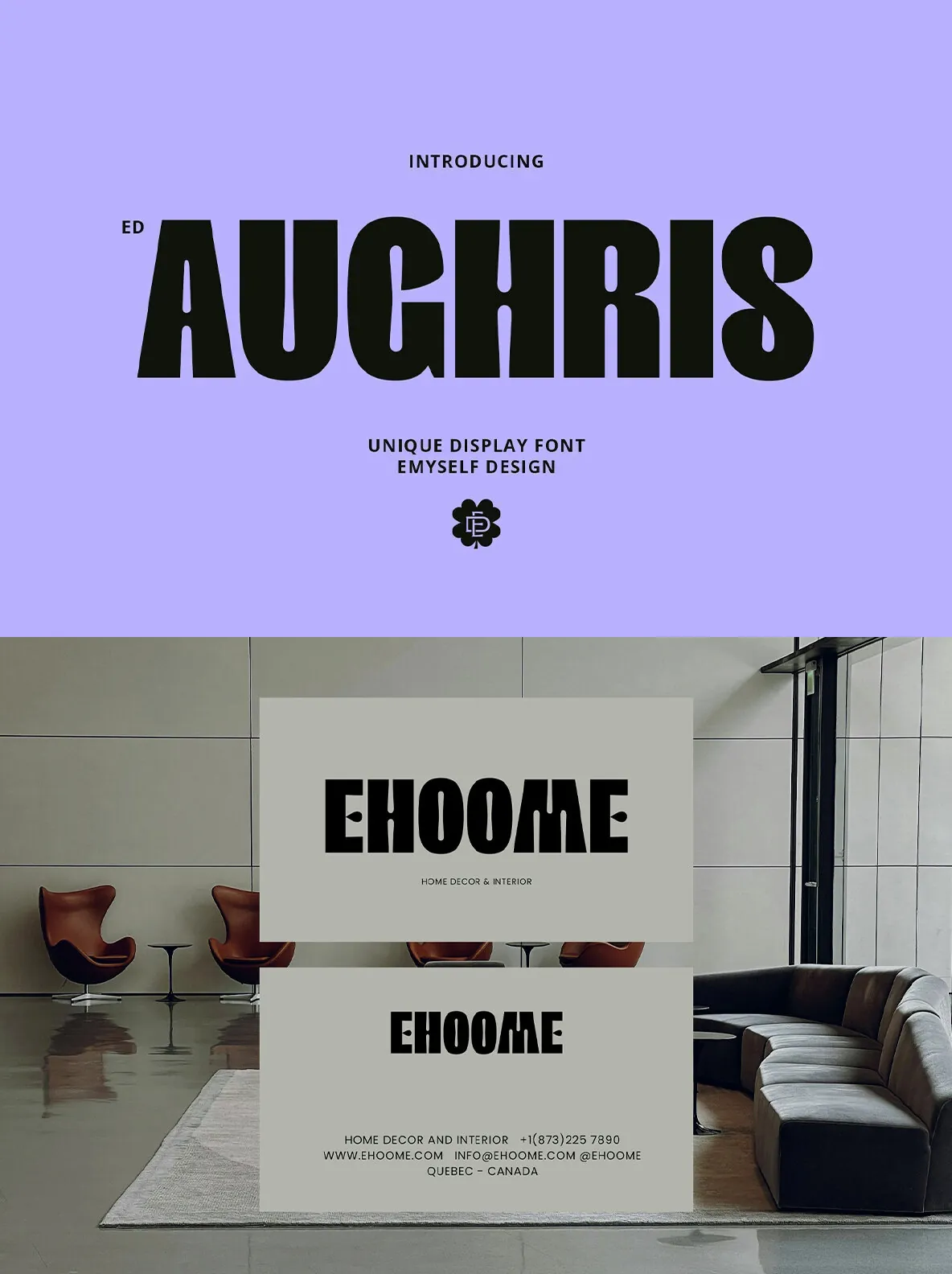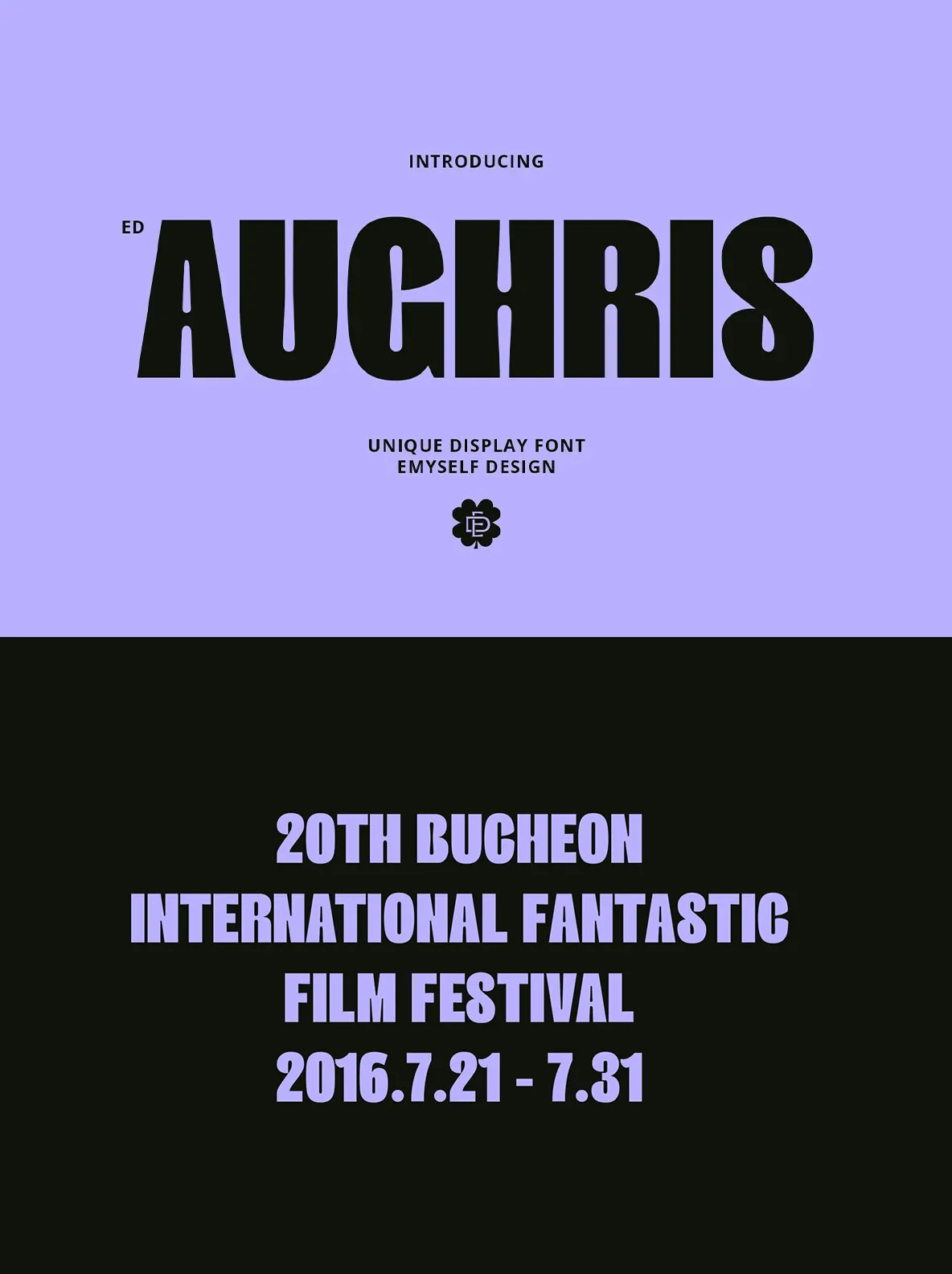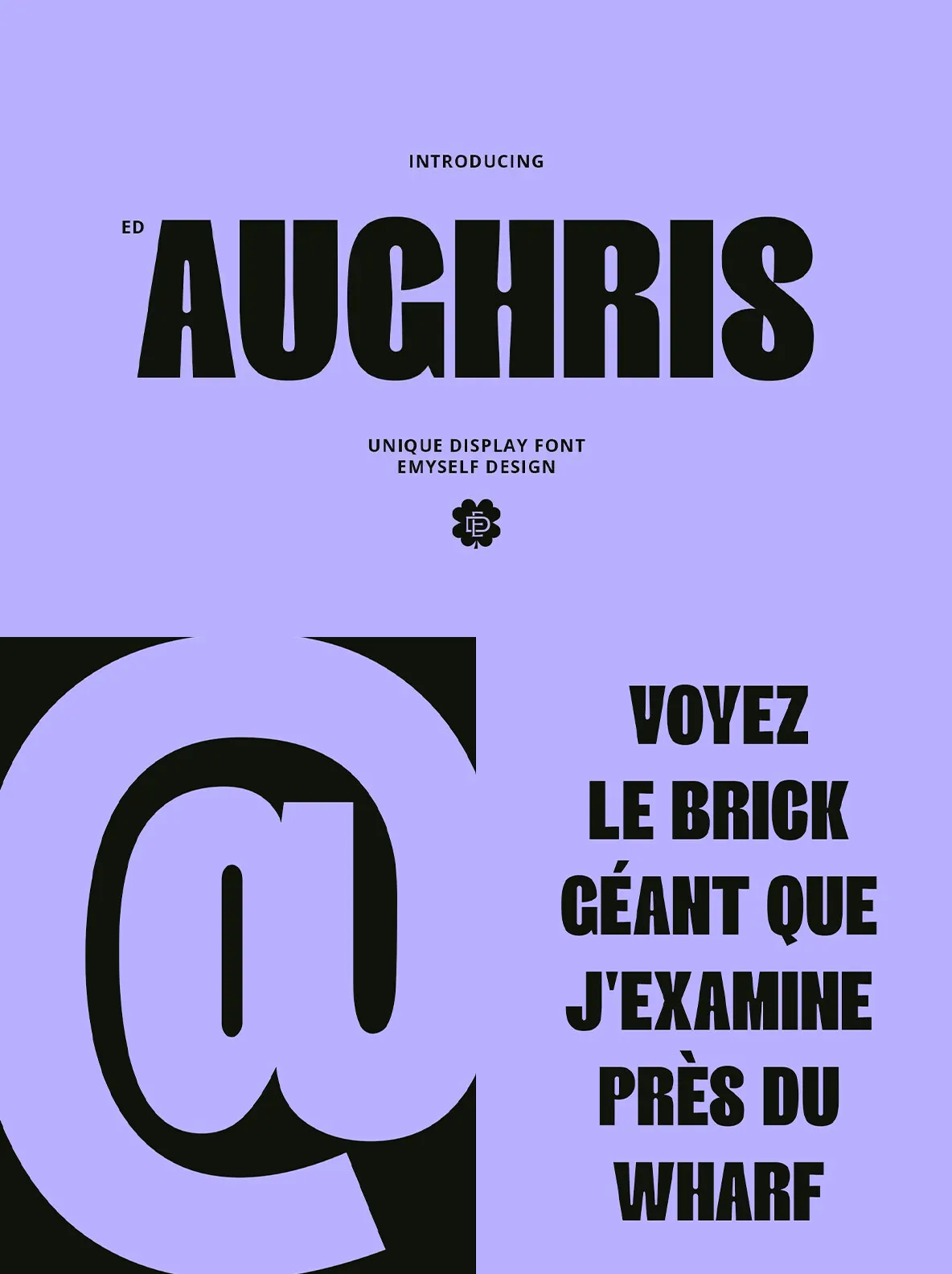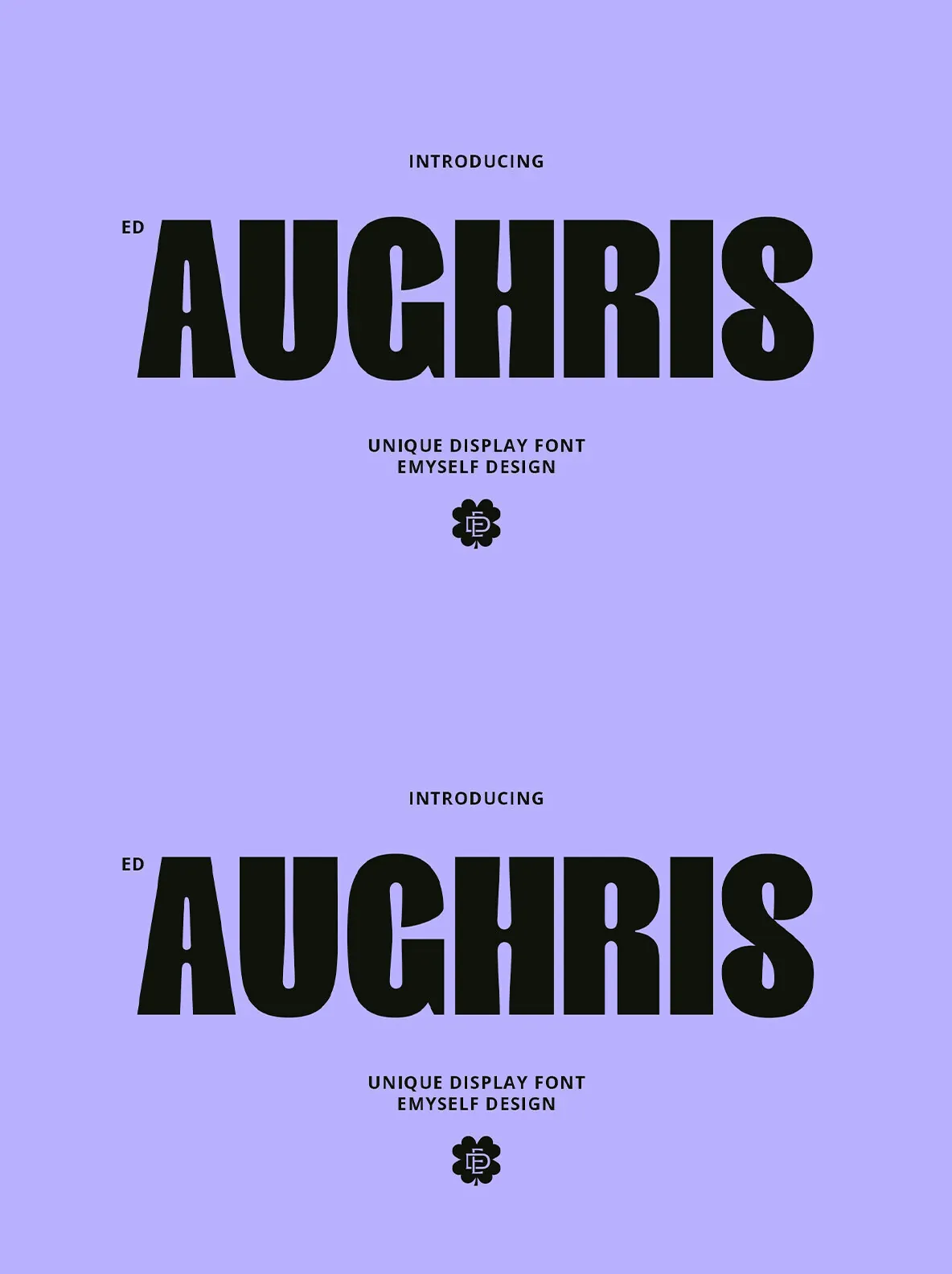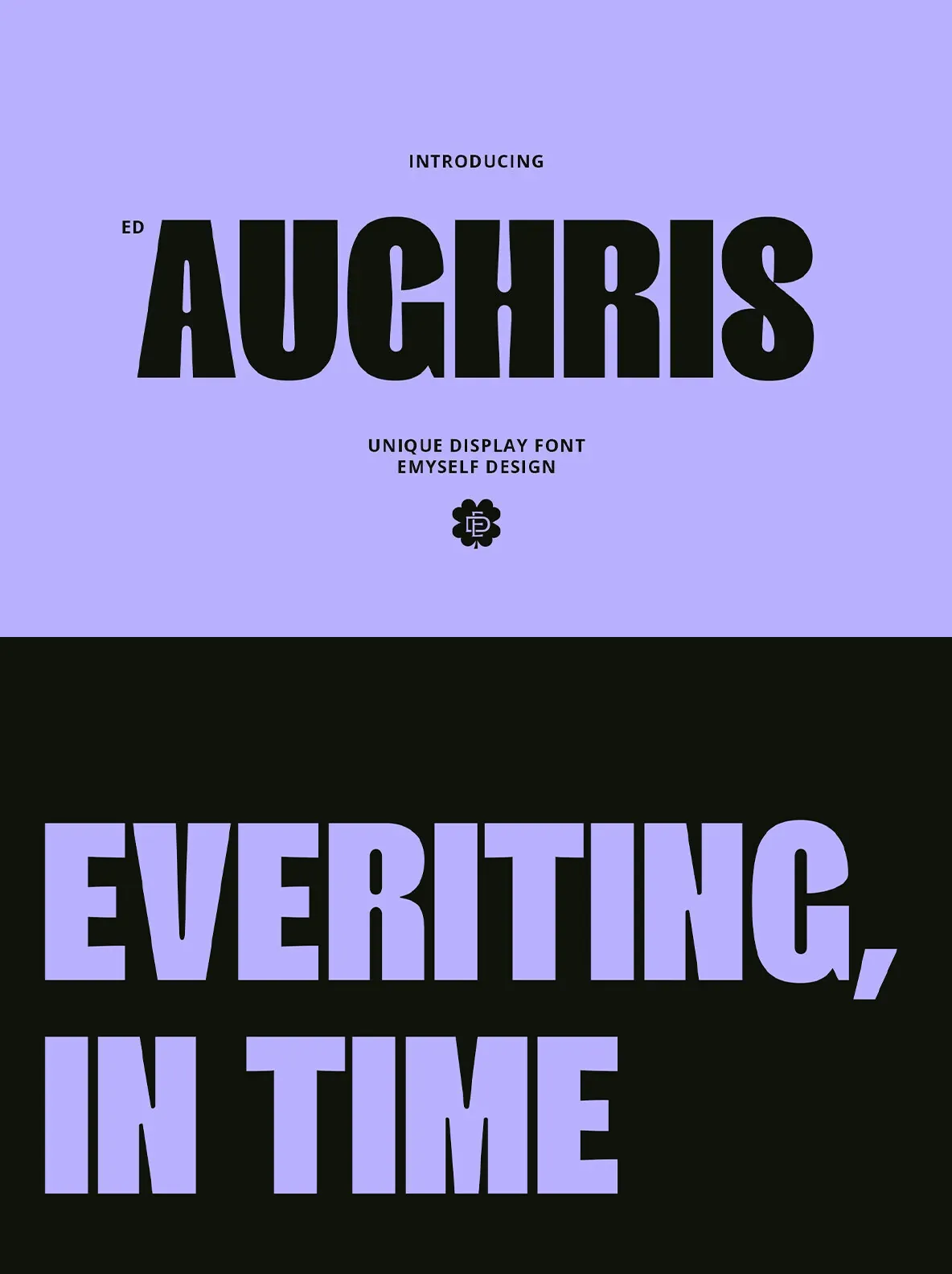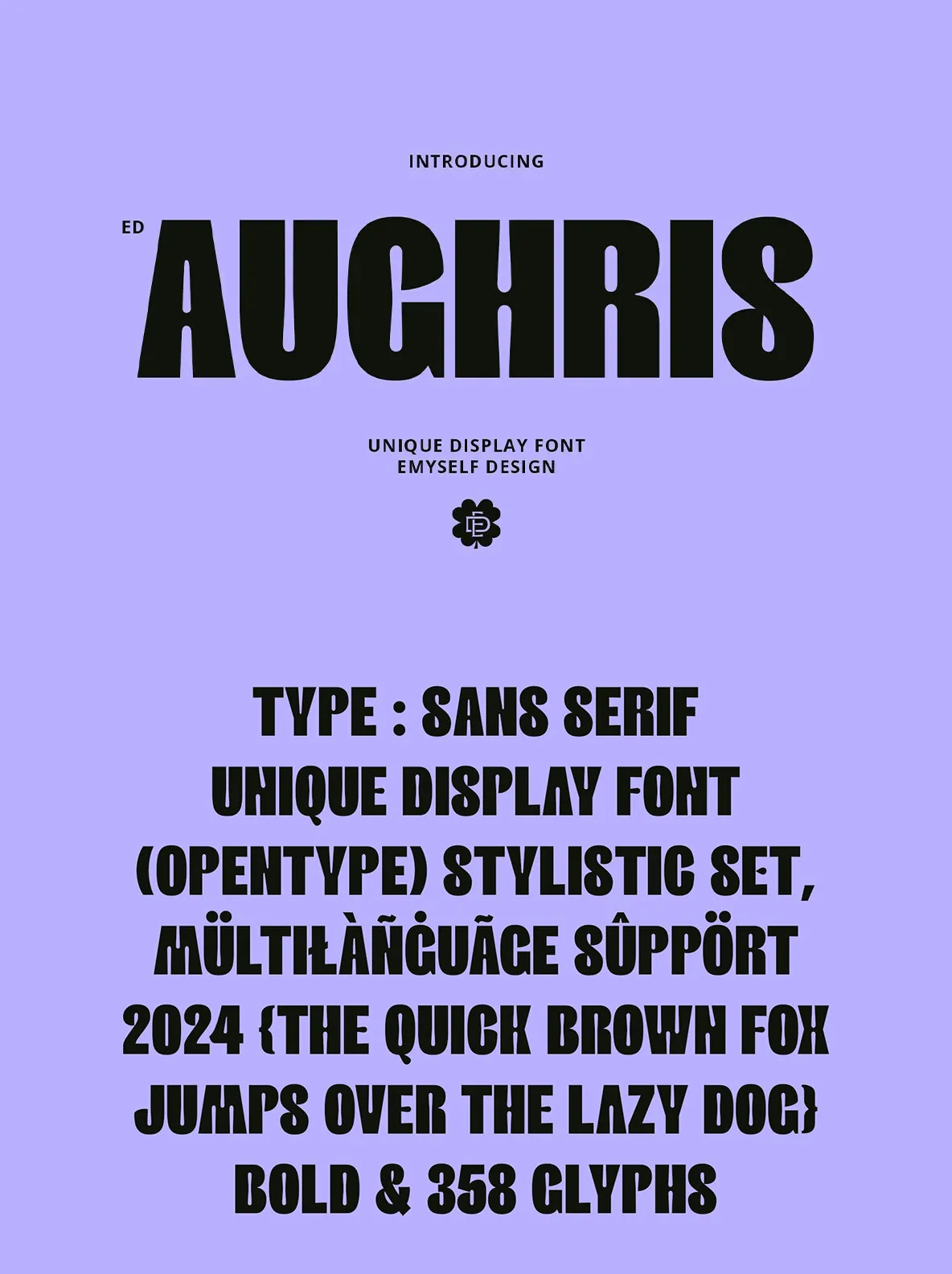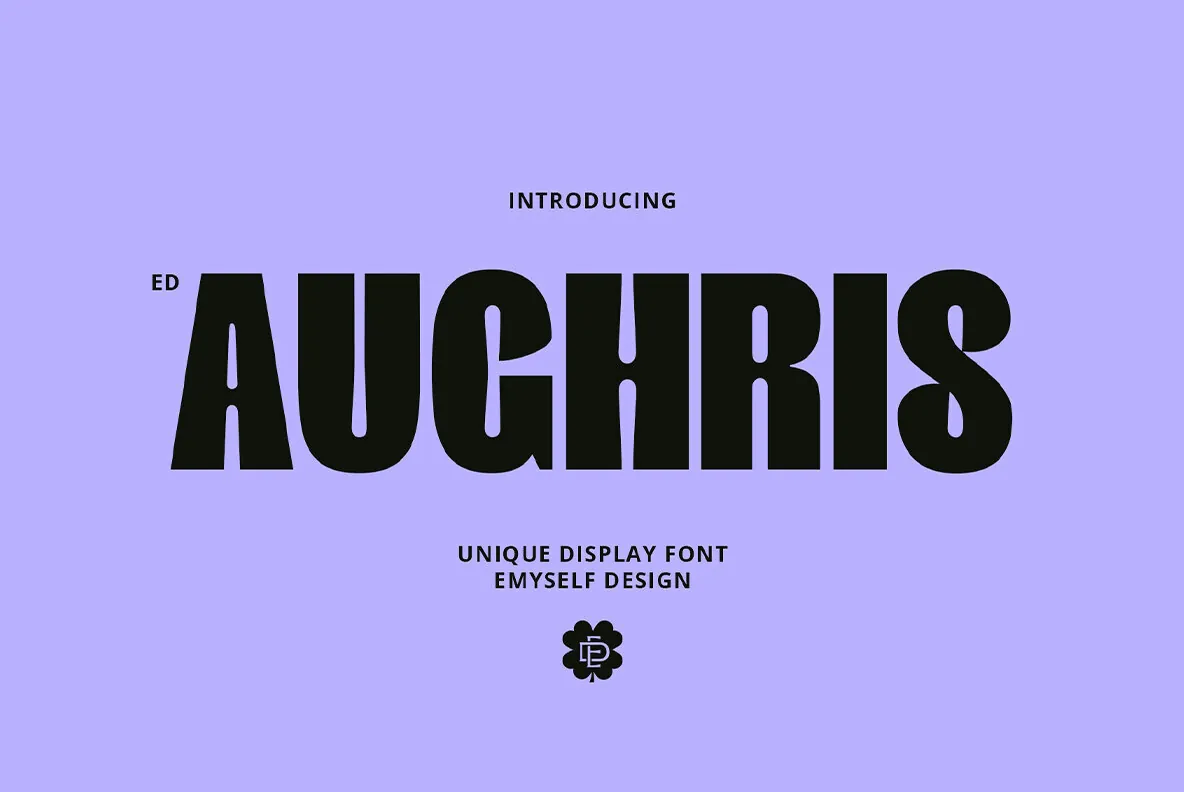
Aughris — Bold Minimalism, Clear Impact
Aughris is a sans serif display font with a strong, modern character. Its bold design and minimalist style suit a wide range of graphic design work, from headlines to striking graphic elements. Use it when you need clarity, presence, and a clean silhouette that reads quickly.
Aughris is designed to combine easily with many other fonts, giving you more freedom when building type pairings and layouts. Its distinctive shapes add a different touch to each design, while the modern, minimalist approach fits current design trends. The result is a fresh, contemporary look that stays focused on the message.
This font is perfect for creative projects such as logotype, printed quotes, invitations, cards, headers, letterheads, apparel, web design, magazines, books, and more.